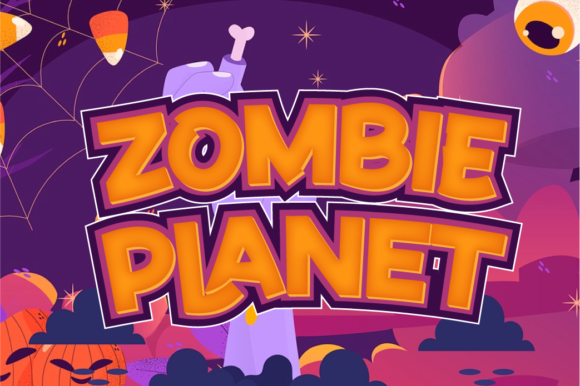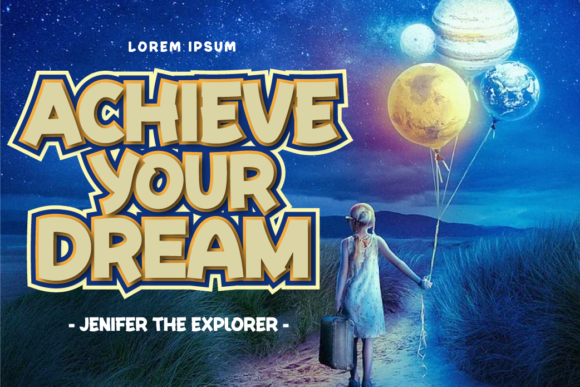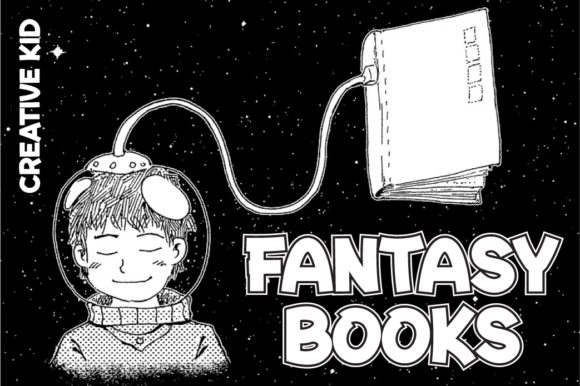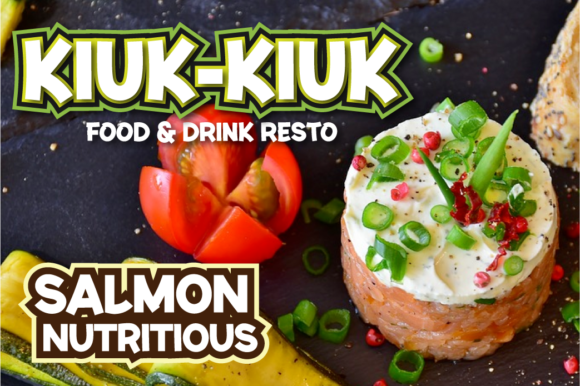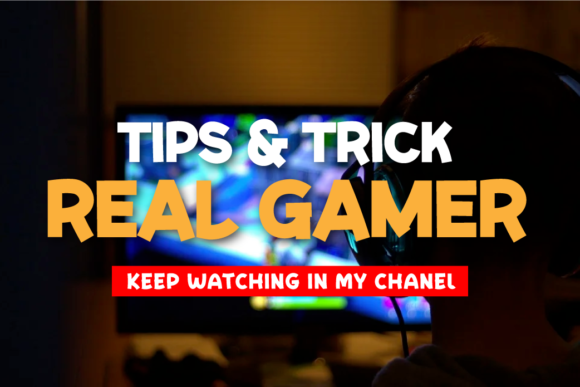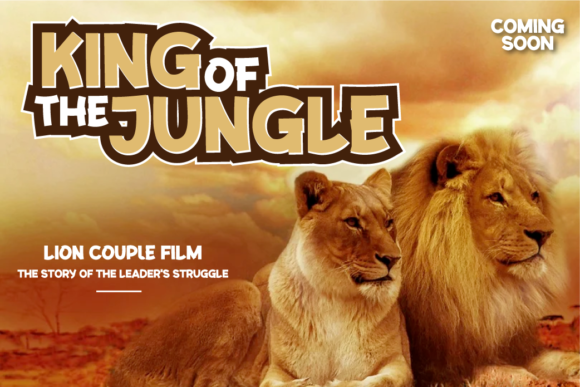
Gayeng Font: The Fun and Playful Display Font for Kids’ Designs
Are you a designer or crafter looking for a font that can add a touch of playfulness and fun to your kids’ related designs? Look no further than Gayeng Font! This chunky lettered font is perfect for bringing your designs to life and making them more engaging for kids. In this article, we’ll take a closer look at Gayeng Font, its features, and how you can use it to create amazing designs for kids.
What is Gayeng Font?
Gayeng Font is a fun and playful display font that is designed to add a touch of excitement to your designs. Its chunky letters and bold style make it perfect for use in kids’ related designs, such as children’s books, posters, flyers, and more. The font is easy to read and has a friendly feel to it, making it ideal for designs that are meant to appeal to kids.
Features of Gayeng Font
Gayeng Font has several features that make it a great choice for designers and crafters. Some of its key features include:
- Chunky letters: The font features chunky letters that are bold and easy to read.
- Playful style: The font has a playful style that is perfect for kids’ related designs.
- High-quality design: The font is designed with high-quality graphics, making it perfect for use in professional designs.
How to Use Gayeng Font
- Use it for headings: Gayeng Font is perfect for use in headings and titles. Its bold style and chunky letters make it easy to read and attention-grabbing.
- Add it to your children’s book designs: If you’re designing a children’s book, Gayeng Font is a great choice. Its playful style and friendly feel make it perfect for kids’ stories.
- Use it for posters and flyers: Gayeng Font is also great for use in posters and flyers. Its bold style and chunky letters make it easy to read from a distance.
Benefits of Using Gayeng Font
There are many benefits to using Gayeng Font in your designs. Some of the benefits include:
- Increased engagement: Gayeng Font is designed to be attention-grabbing and engaging. Its playful style and chunky letters make it perfect for kids’ related designs.
- Easy to read: The font is easy to read, even for young children. Its bold style and simple design make it perfect for use in children’s books and other kids’ related designs.
- Versatile: Gayeng Font is versatile and can be used in a variety of designs, from children’s books to posters and flyers.
In conclusion, Gayeng Font is a fun and playful display font that is perfect for kids’ related designs. Its chunky letters and bold style make it easy to read and attention-grabbing. With its high-quality design and ease of use, Gayeng Font is a great choice for designers and crafters who want to add a touch of playfulness to their designs. So why not give Gayeng Font a try and see how it can bring your designs to life?